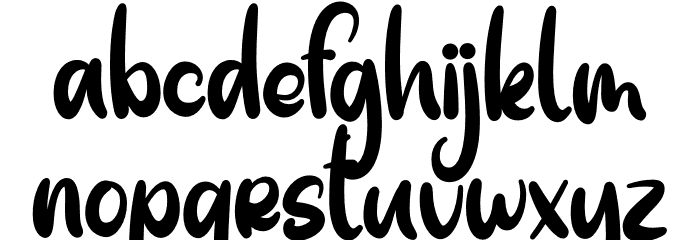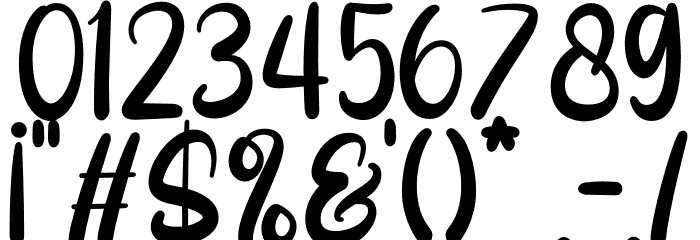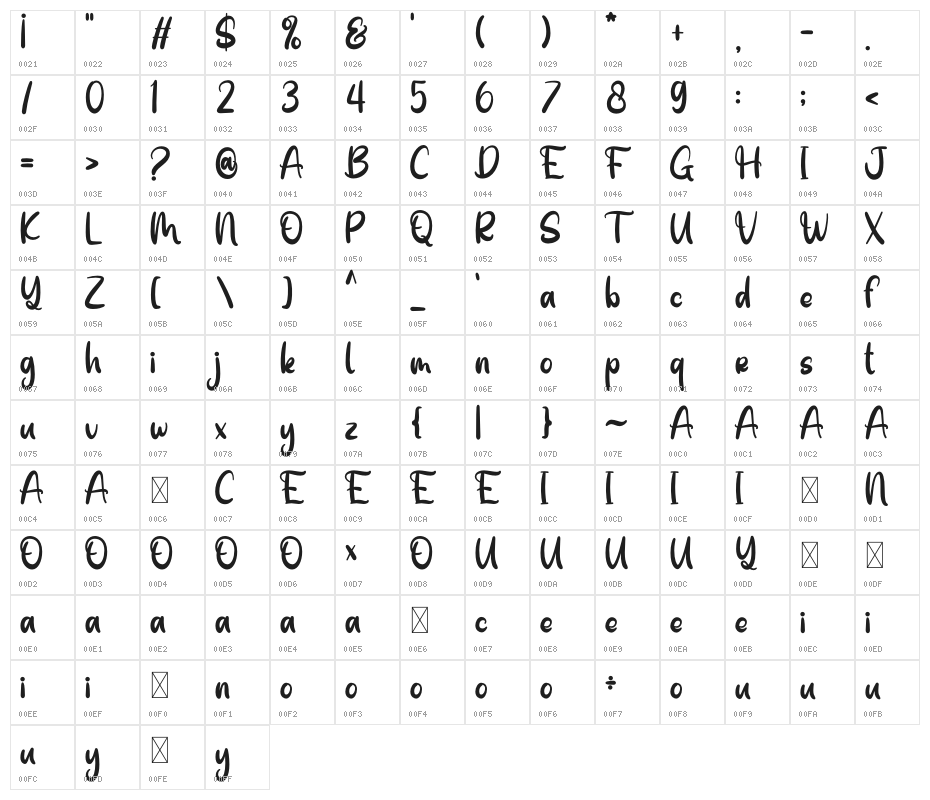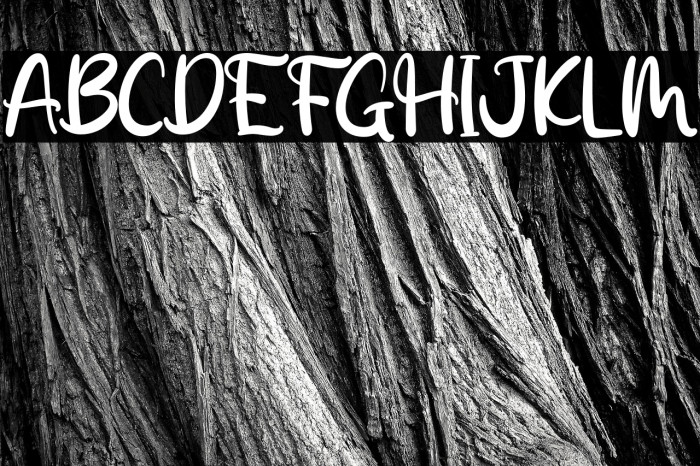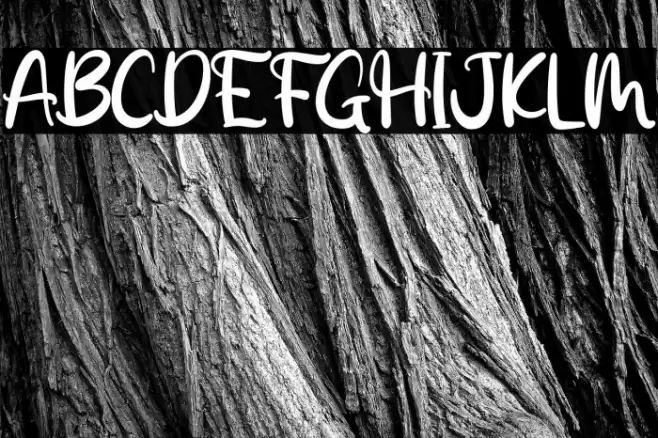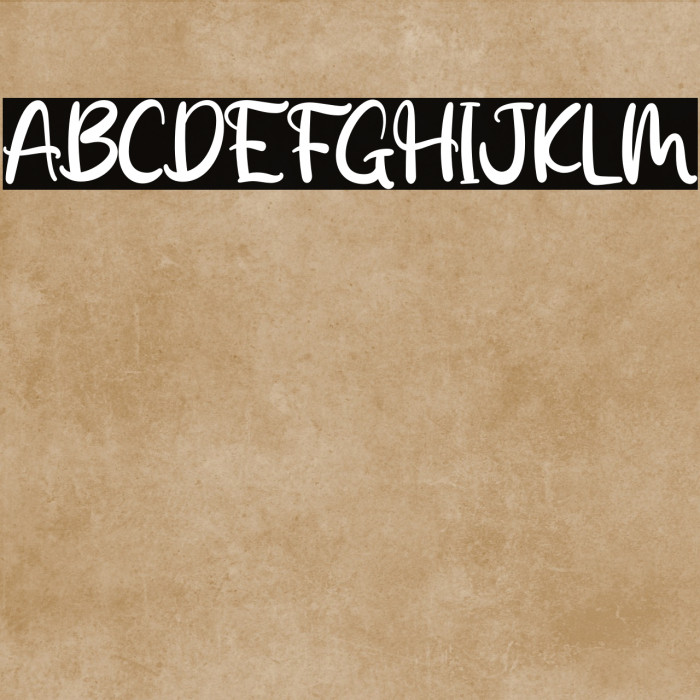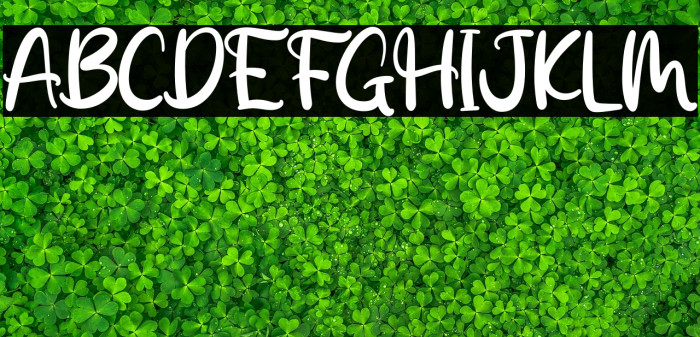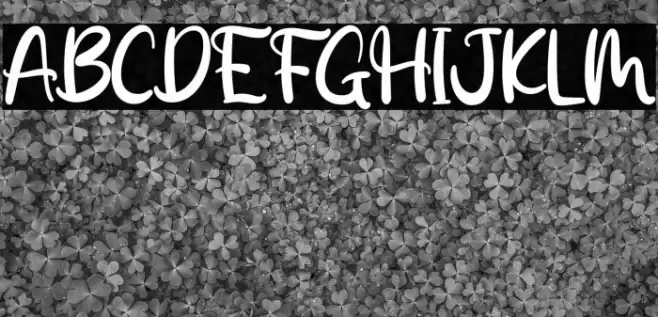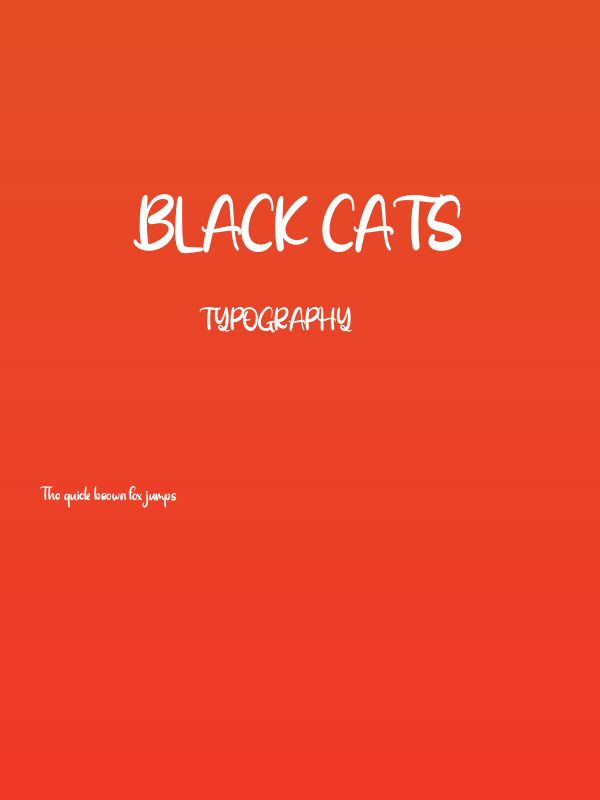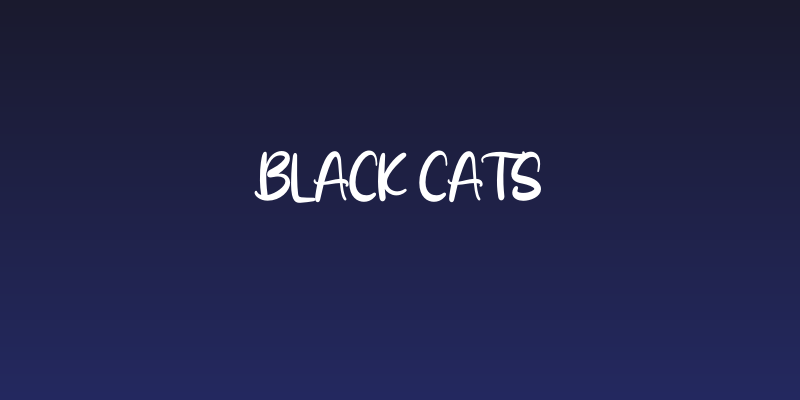
Black Cats Font
This playful and bold font features a handwritten style with a lively and dynamic appearance. The letters are characterized by their rounded edges and fluid strokes, giving them a friendly and approachable feel. The uppercase and lowercase letters maintain a consistent style, with a slight slant that adds to the casual aesthetic. The numbers and special characters are equally expressive, maintaining the same whimsical quality. This font is perfect for projects that require a touch of fun and creativity, such as children's books, playful branding, or informal invitations.
A playful, handwritten font with bold, rounded strokes and a lively appearance.
- Font: Black Cats
- Proposed Projects: Ideal for children's books, playful branding, informal invitations, and creative projects.
- Category: Handwritten
- Overall Style: Playful
- Use Case: Headlines, Logos, Informal Text